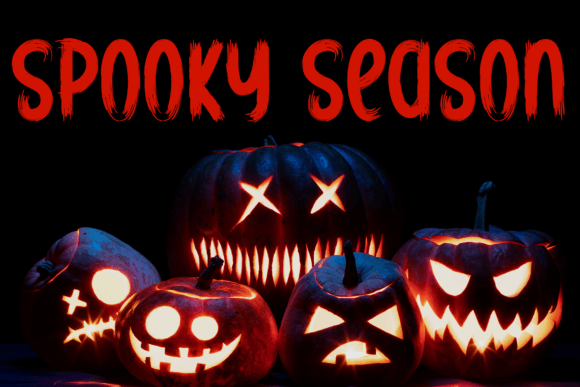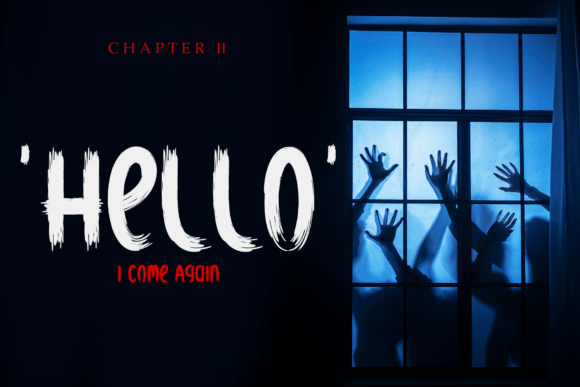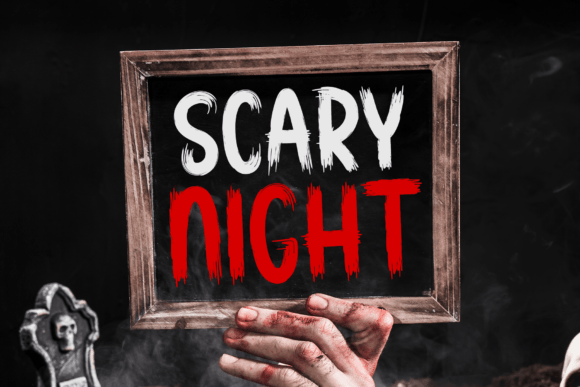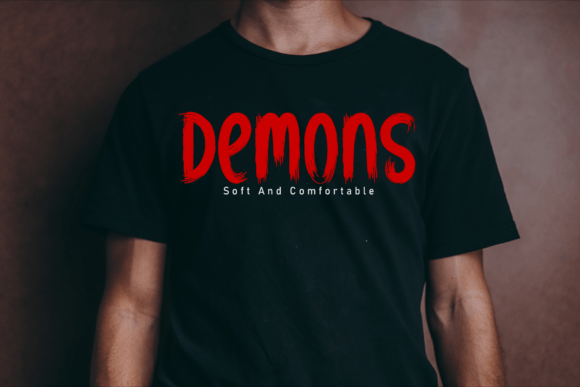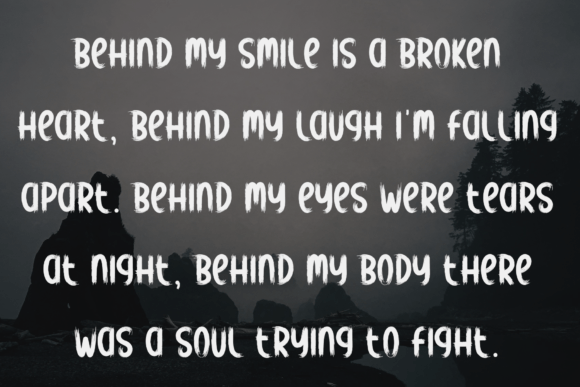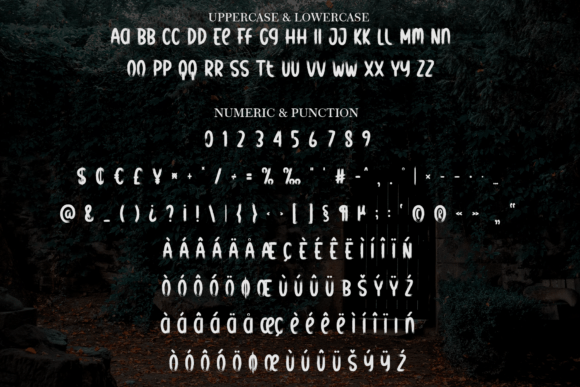
Introduction to Haunted Garden Font
As a designer, you know the thrill of stumbling upon the perfect font for your creative project. It’s that moment when all the elements come together, and your vision starts to take shape. For me, that moment happened when I discovered the enchanting Haunted Garden Font. Its unique blend of mystique and elegance instantly captivated me, and I knew I had to share it with fellow designers.
With its intricate details and organic feel, the Haunted Garden Font is a game-changer for any project that requires a touch of magic. Whether you’re working on a Halloween-themed design, a fantasy novel cover, or a whimsical invitation, this font is sure to transport your audience to a world of wonder and enchantment. In this article, we’ll delve into the world of the Haunted Garden Font and explore why it’s a valuable addition to any designer’s toolkit.
Key Features of Haunted Garden Font
- High-quality, hand-drawn design perfect for creative projects requiring a unique touch.
- Transparent background, allowing for seamless integration with any design or image.
- Perfect for designers looking for a distinctive, whimsical font to elevate their creative project.
Honest Review: Haunted Garden Font
The font is designed with a transparent background, allowing for seamless integration with any design element. The intricate details and spooky atmosphere make it perfect for projects with a dark or mystical theme.
- Unique design aesthetic: The Haunted Garden Font offers a one-of-a-kind look that’s perfect for adding a touch of eeriness to your designs.
- High-quality design: The font is well-designed and crafted with attention to detail, making it a great addition to any project.
- Limited use cases: The font may not be suitable for all design projects, particularly those requiring a more modern or minimalist look.
- May require adjustments: Depending on the design context, you may need to adjust the font size or style to achieve the desired effect.
Overall, I’m impressed with the Haunted Garden Font and would highly recommend it to designers looking for a unique and high-quality design resource.
The Haunted Garden Font is perfect for Halloween-themed designs, spooky invitations, and creative projects that require a touch of mystery and elegance. It’s also great for designers who want to add a unique and high-quality design resource to their portfolio.